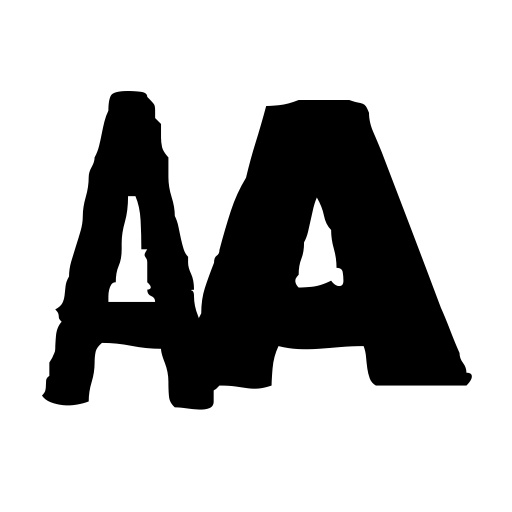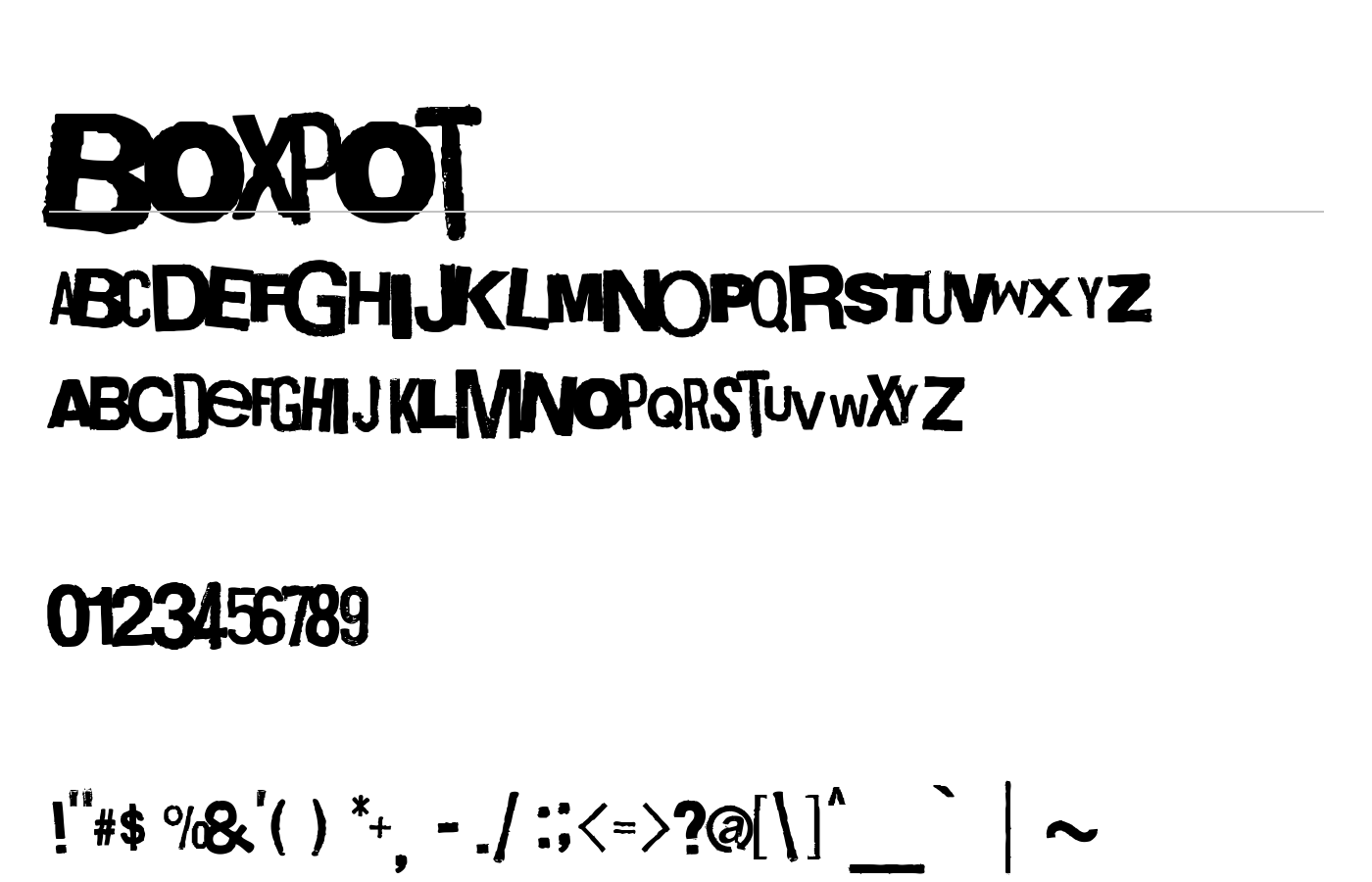
Boxpot is a bold, condensed sans serif font with a playful, hand-drawn feel characterized by uneven edges and irregular shapes. Its heavy weight and quirky letterforms create a dynamic and informal style that works well for casual branding, creative headlines, and eye-catching posters. This font’s energetic personality makes it ideal for designs seeking a fun, distinctive, and approachable look.
Boxpot Font
About Boxpot Font
| Font family | Boxpot Font |
| Designer | Nick Polifroni |